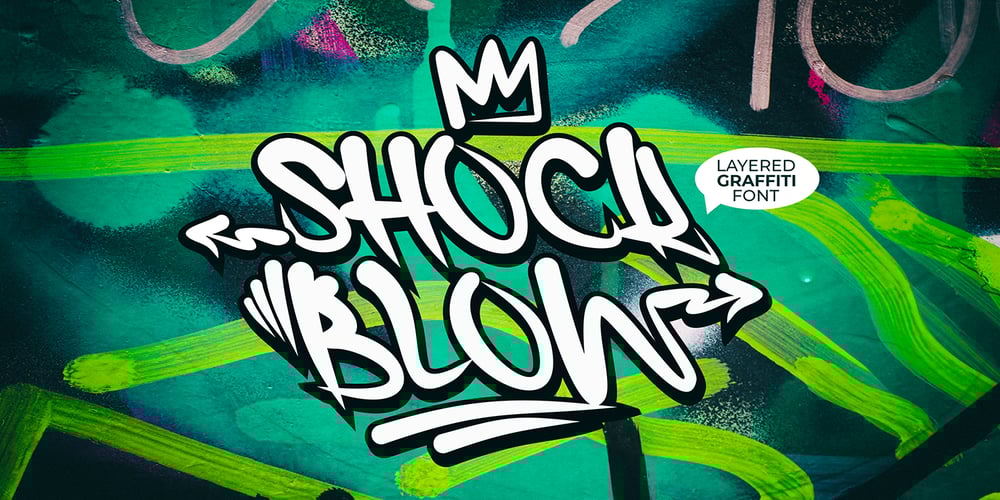
Shock Blow Font Family was designed by Sipanji and published by Sipanji21. Shock Blow contains 4 styles and family package options. “Shock Block” is a graffiti font featuring swash characters and two distinct style variations: solid and shadow. Graffiti fonts are known for their bold and expressive letterforms, often characterized by dynamic strokes and urban-inspired designs. The addition of swash characters introduces decorative elements or flourishes, enhancing the font’s artistic appeal.The solid style of “Shock Block” provides a bold and straightforward appearance, while the shadow style adds depth and dimension to the characters, creating a three-dimensional effect. This font is ideal for projects that require a graffiti-inspired typographic style with a touch of decorative flair and visual interest. Whether you’re designing posters, street art, or urban-themed graphics, “Shock Block” offers versatility and impact.